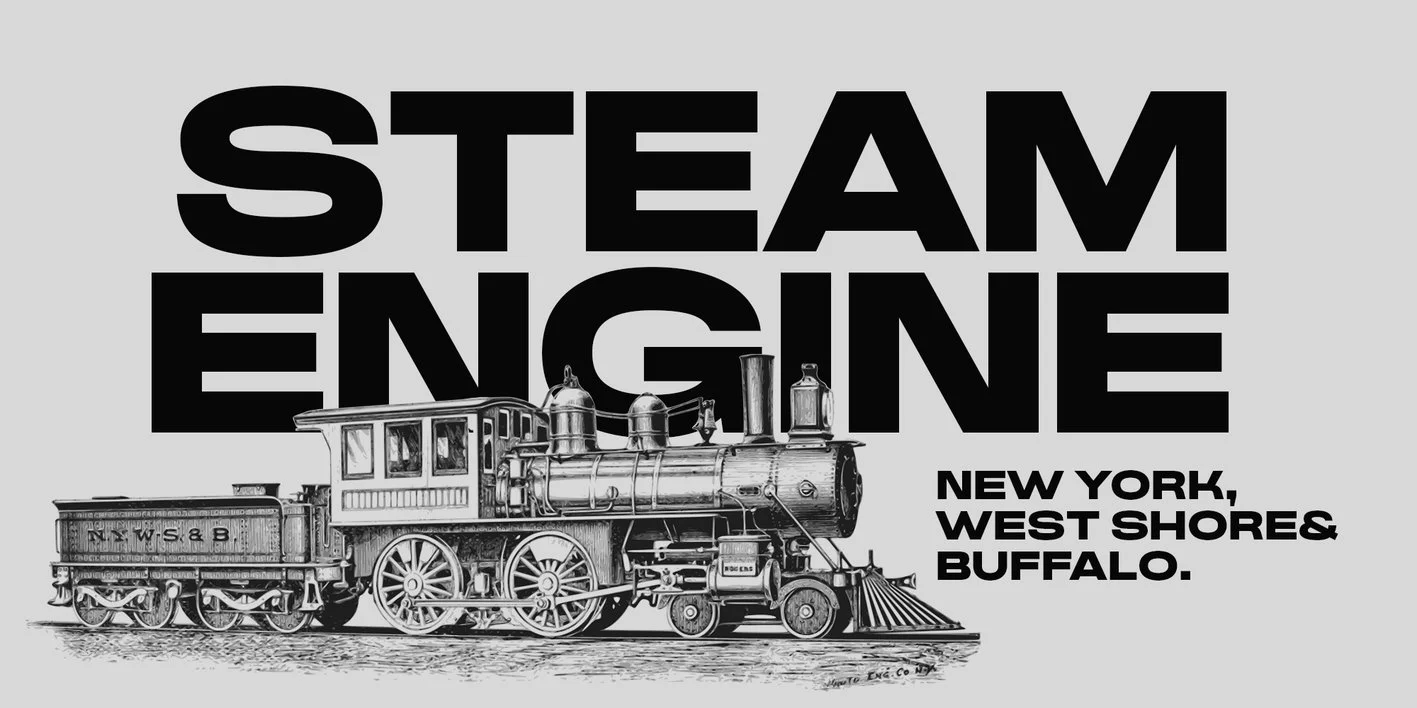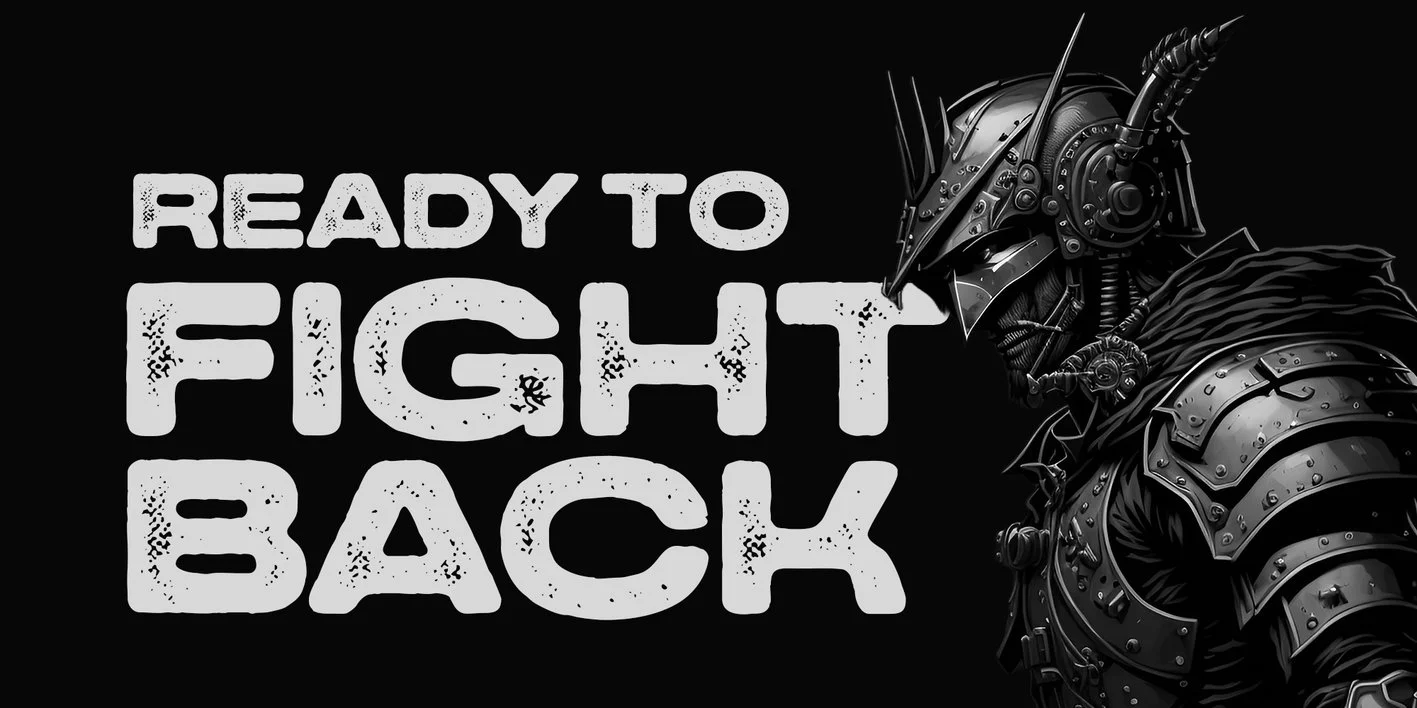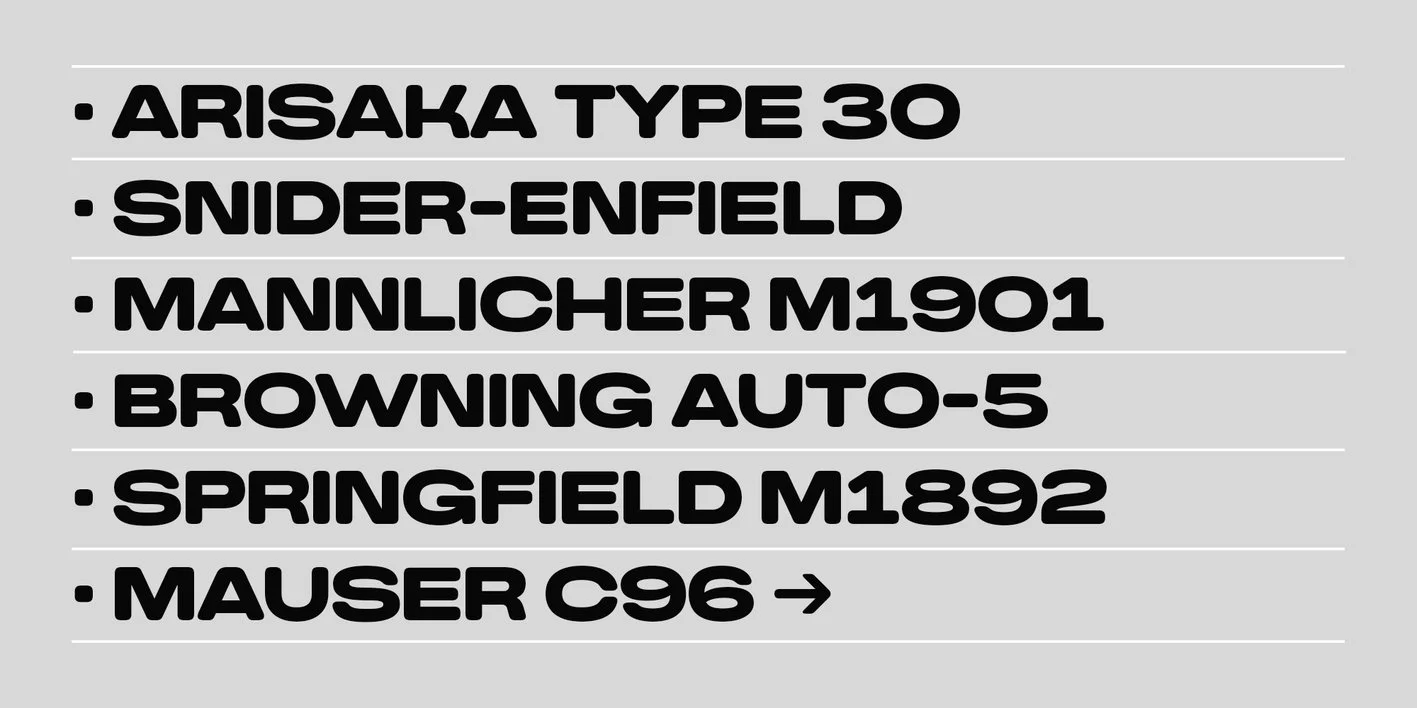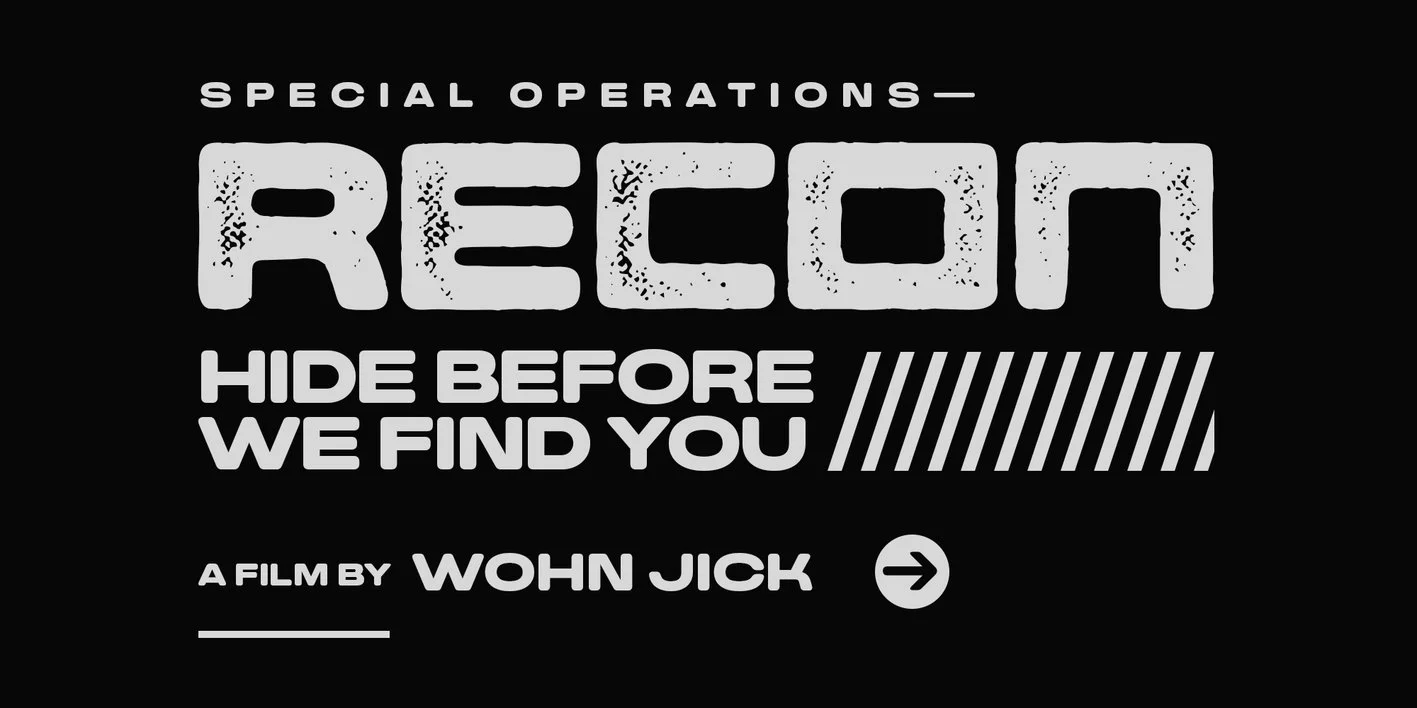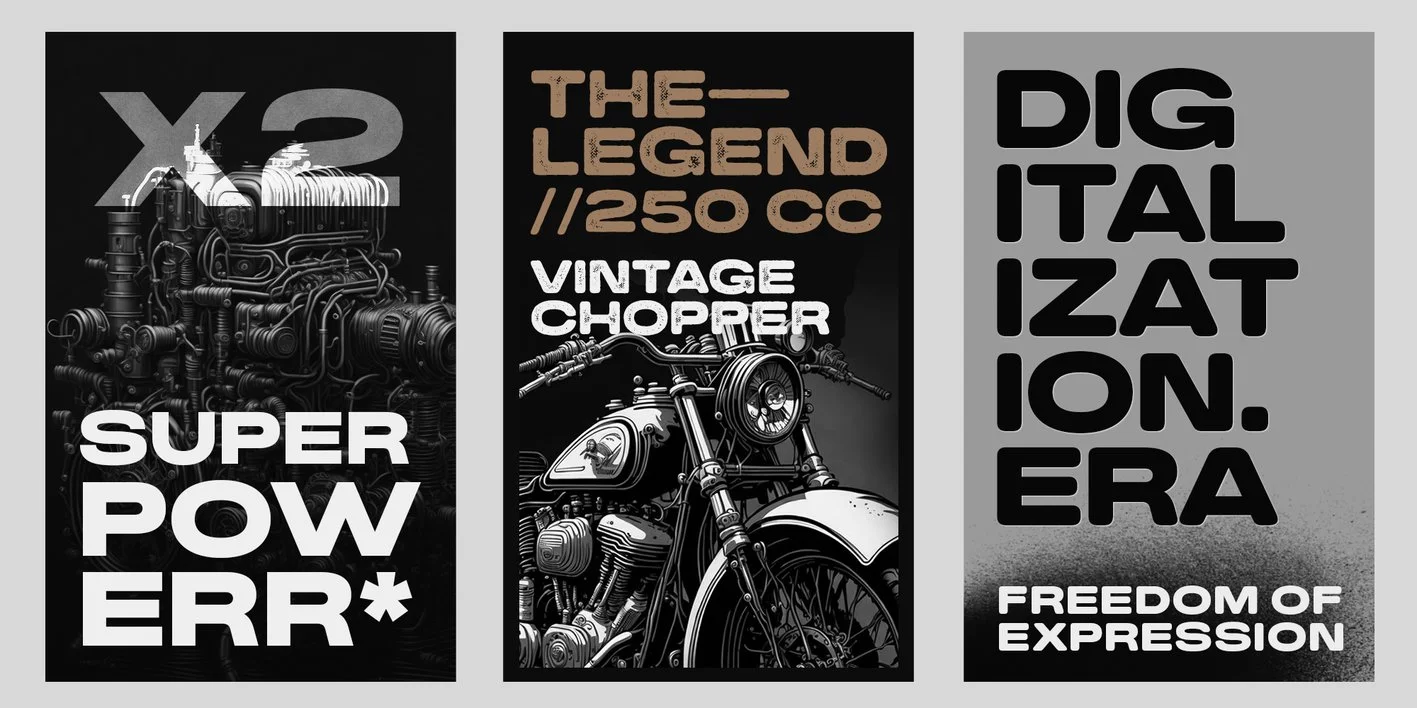
Gelegar Font
Introducing Gelegar, the extraordinary ultra-wide display sans serif font meticulously crafted for commanding visual and emotional impact. Gelegar offers three distinctive styles – expanded regular, rounded, and press – each exuding its own unique character to suit your creative vision. Whether you're designing posters, social media posts, headlines, titling, or large-format prints, Gelegar ensures you stand out from the crowd. Embrace the font that demands attention and amplifies your message.